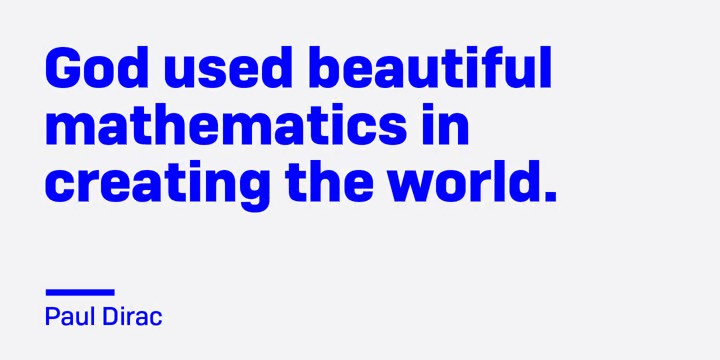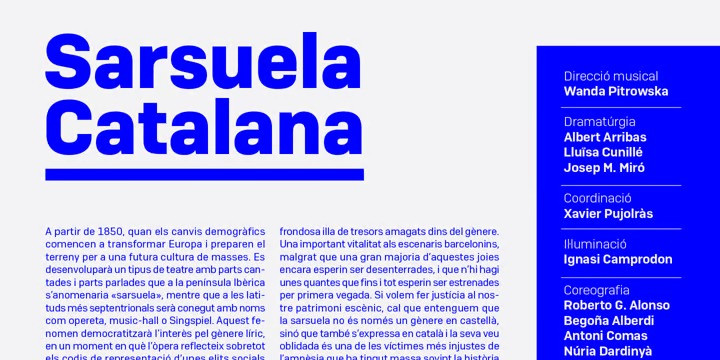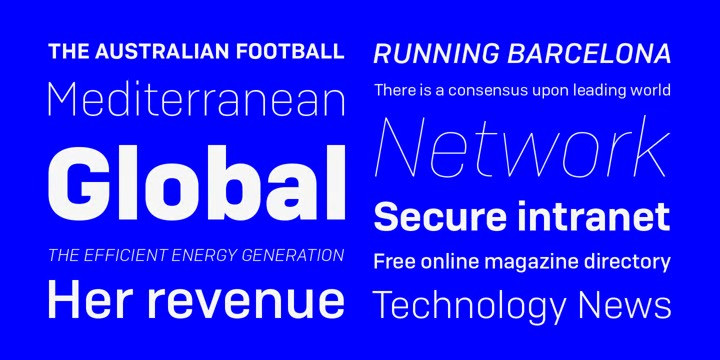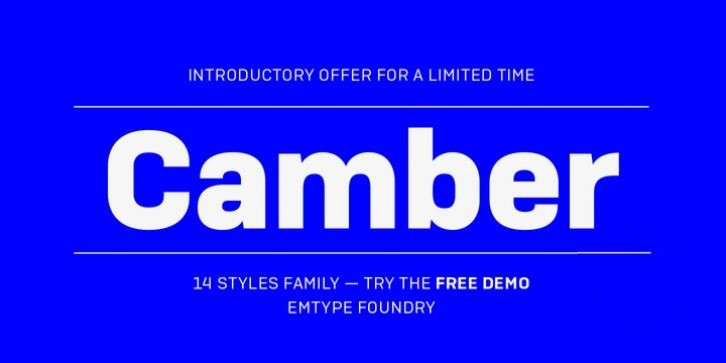
Camber Font Family
Camber Sans Serif Font is a geometric sans font family with round corners and maintains rationality in designing each form. It tries to be more versatile and simpler than its predecessors, with a pragmatic approach, having less visual noise and virtually removing the disturbing elements. The family is generous in width meeting a certain shortage of wider fonts. Camber works well in both display and text, it is a multipurpose font suited for magazine, branding and web. The type family consists of 14 styles, 7 weights (Thin, UltraLight, Light, Regular, Medium, SemiBold and Bold) plus italics and it’s available in Open Type format.